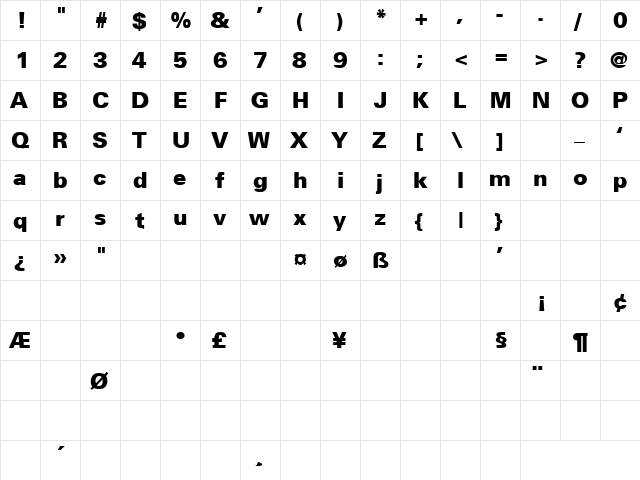
Black Dog 1 Regular
Black Dog 1 offers clean, dependable letterforms without strong stylistic allegiance, making it a practical choice for designers who need flexibility.